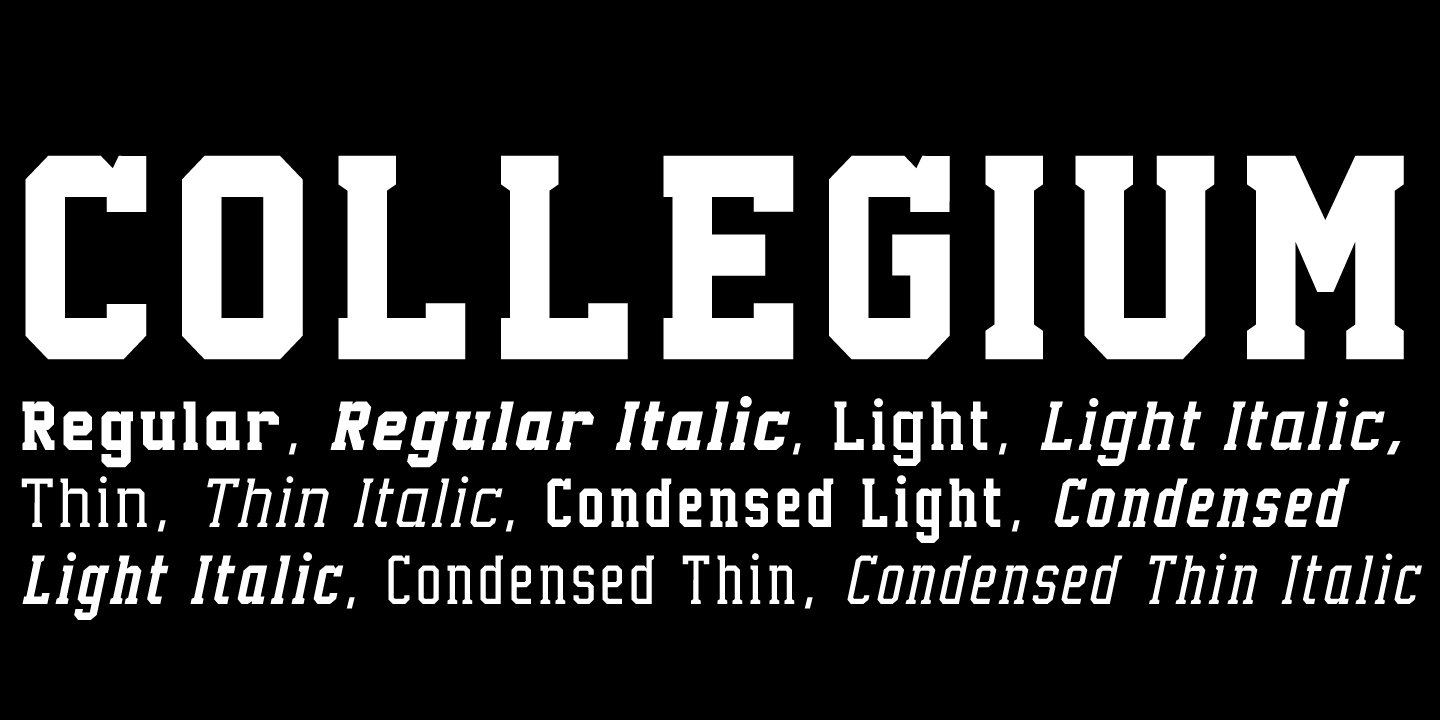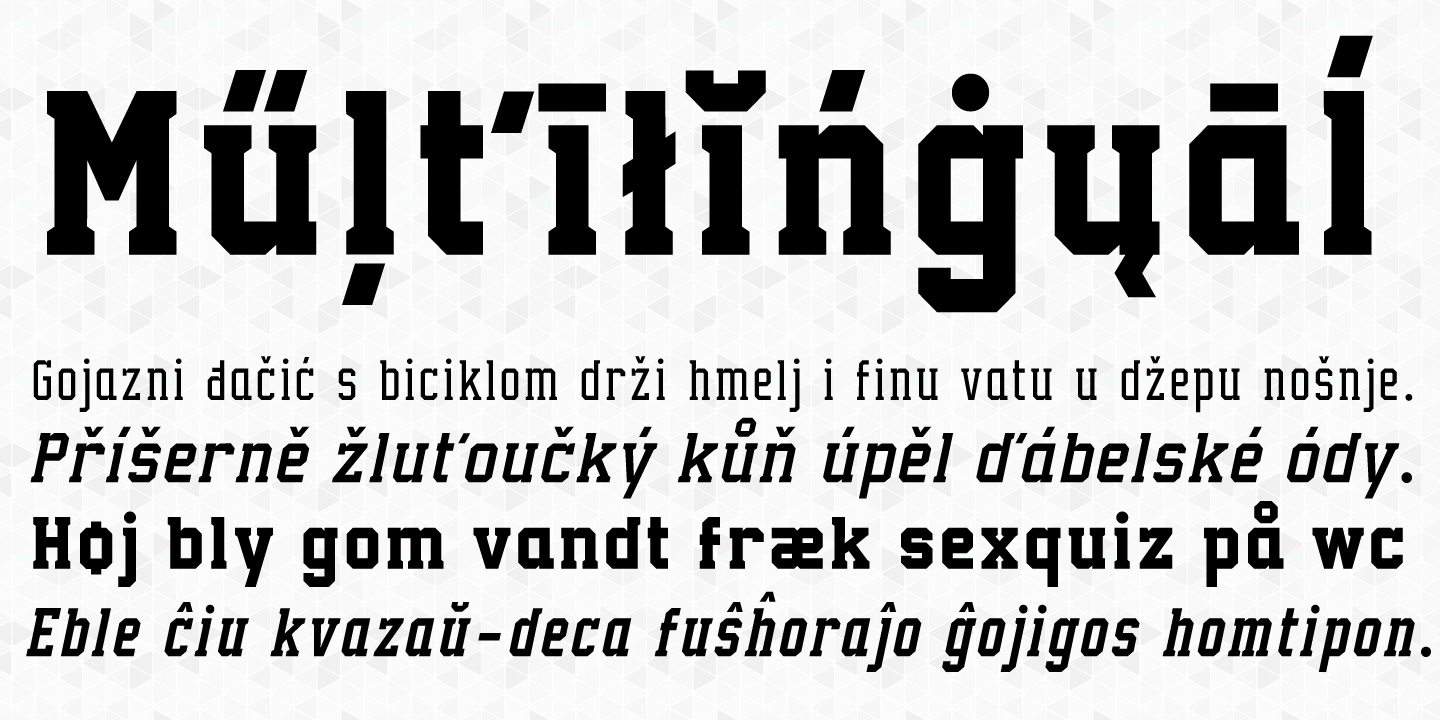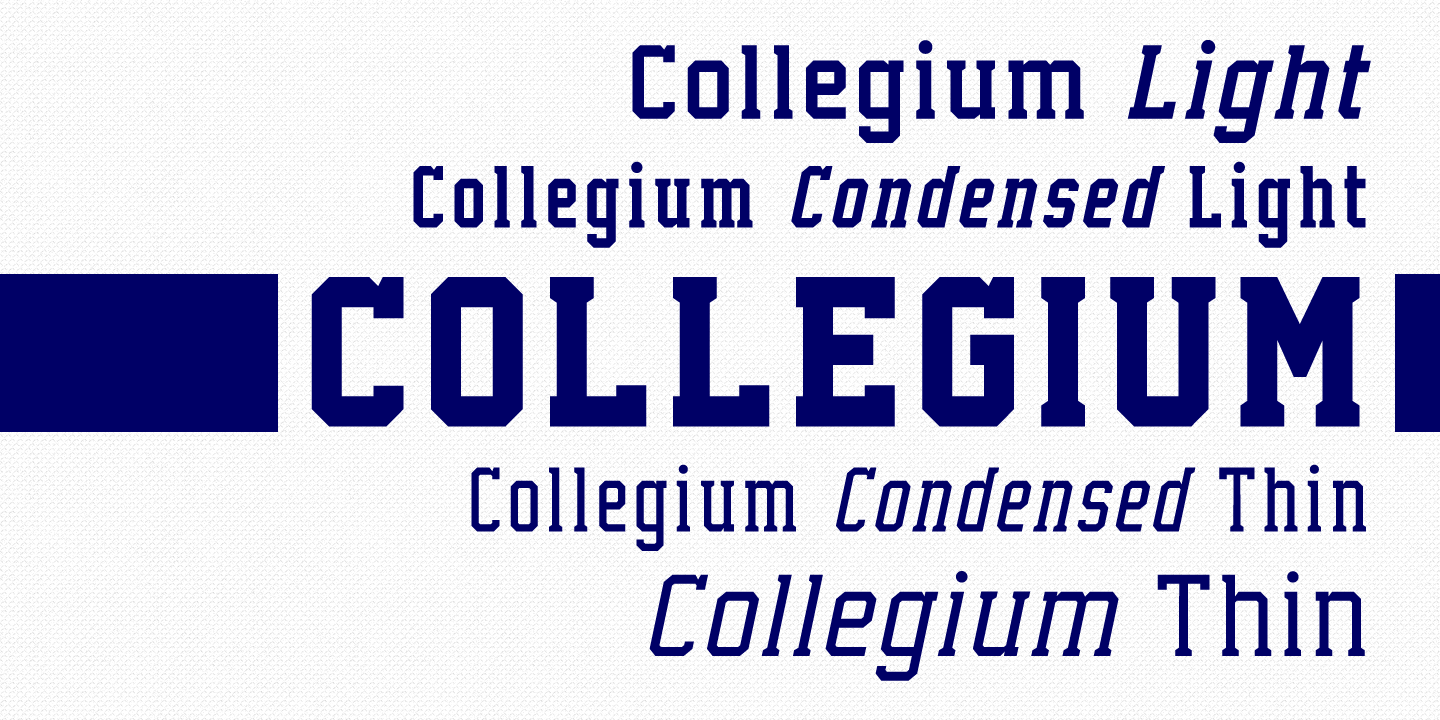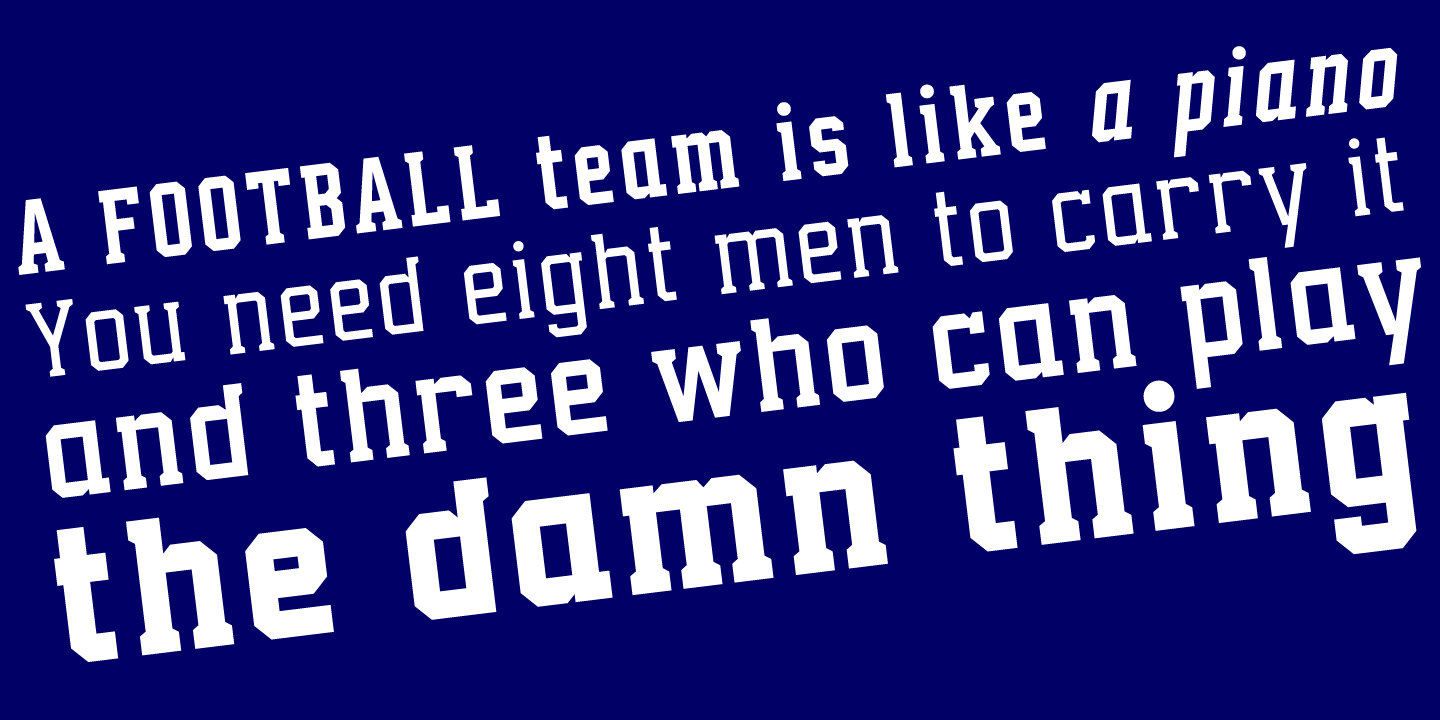
About Collegium
The Collegium is a font family inspired by college and university sportswear lettering. Language support includes Western, Central and Eastern European character sets, as well as Baltic and Turkish languages.